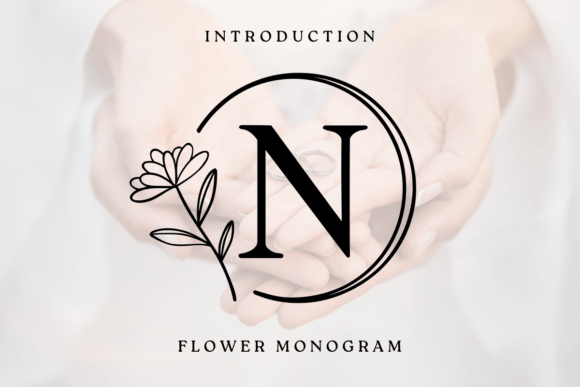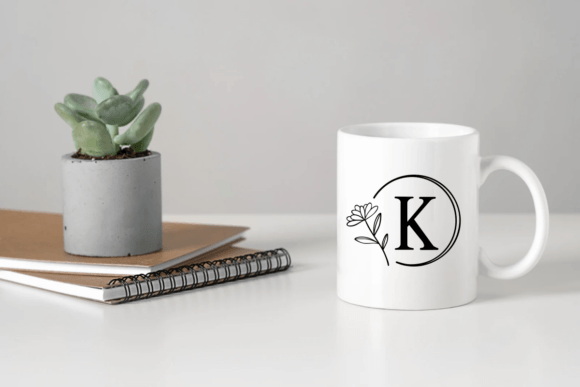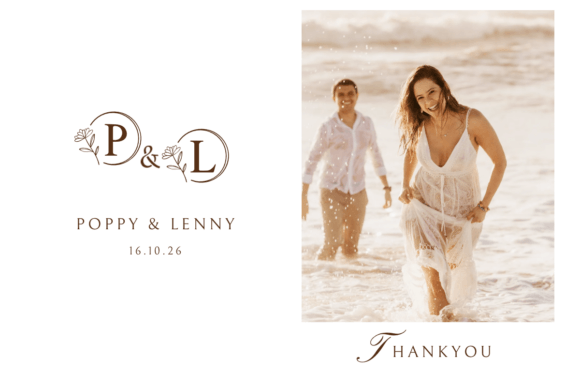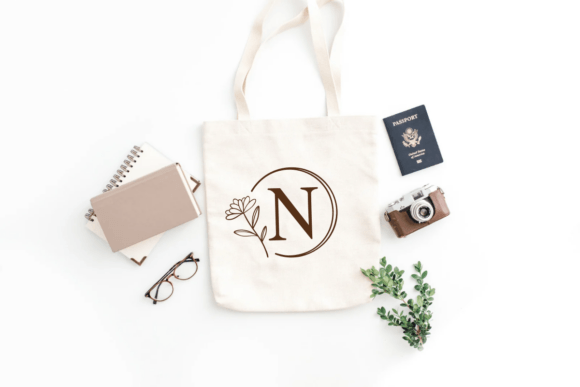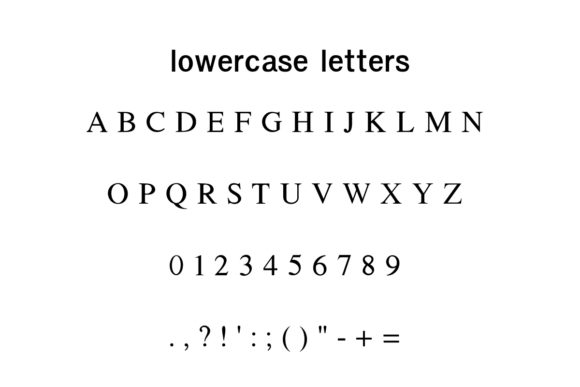
Flower Monogram Font
Flower Monogram is a pretty font that features decorative letters adorned with floral designs. Each letter is beautifully shaped and surrounded by flowers, making it perfect for adding a charming and personal touch to invitations, cards, and other projects. This font combines elegance with nature, giving your text a fresh and lovely look.